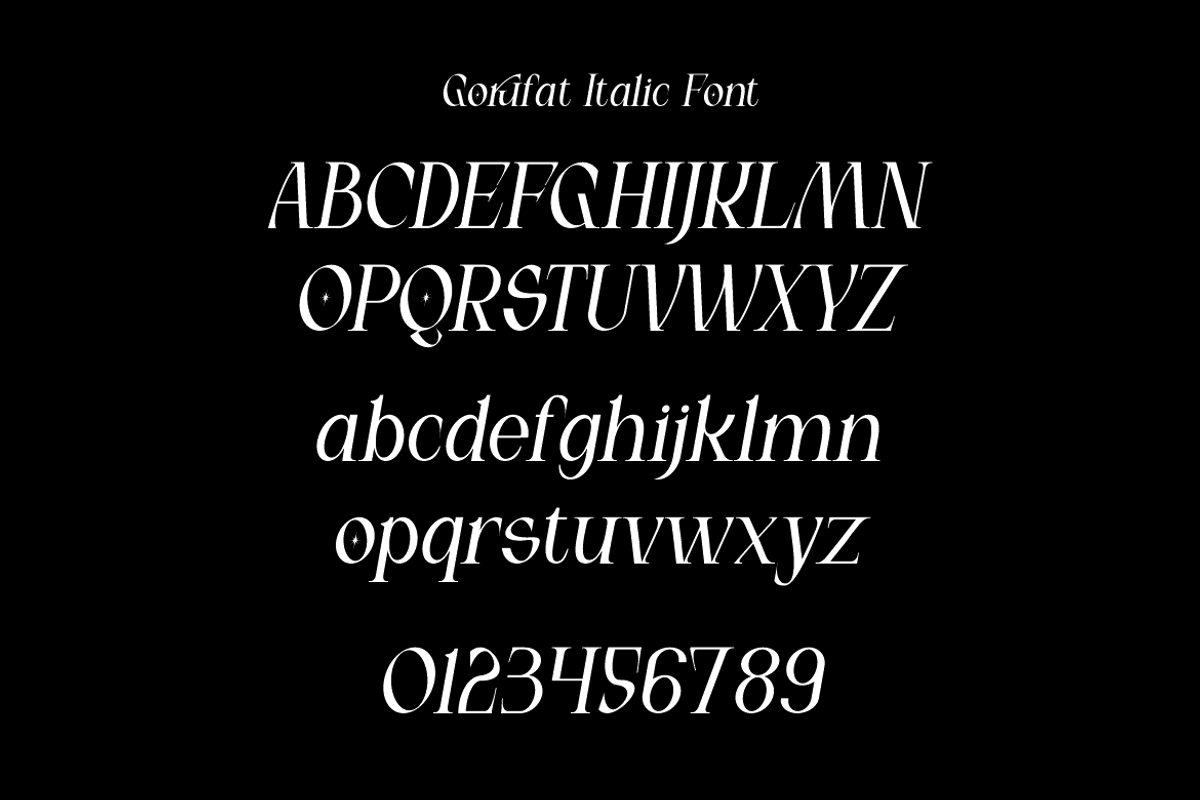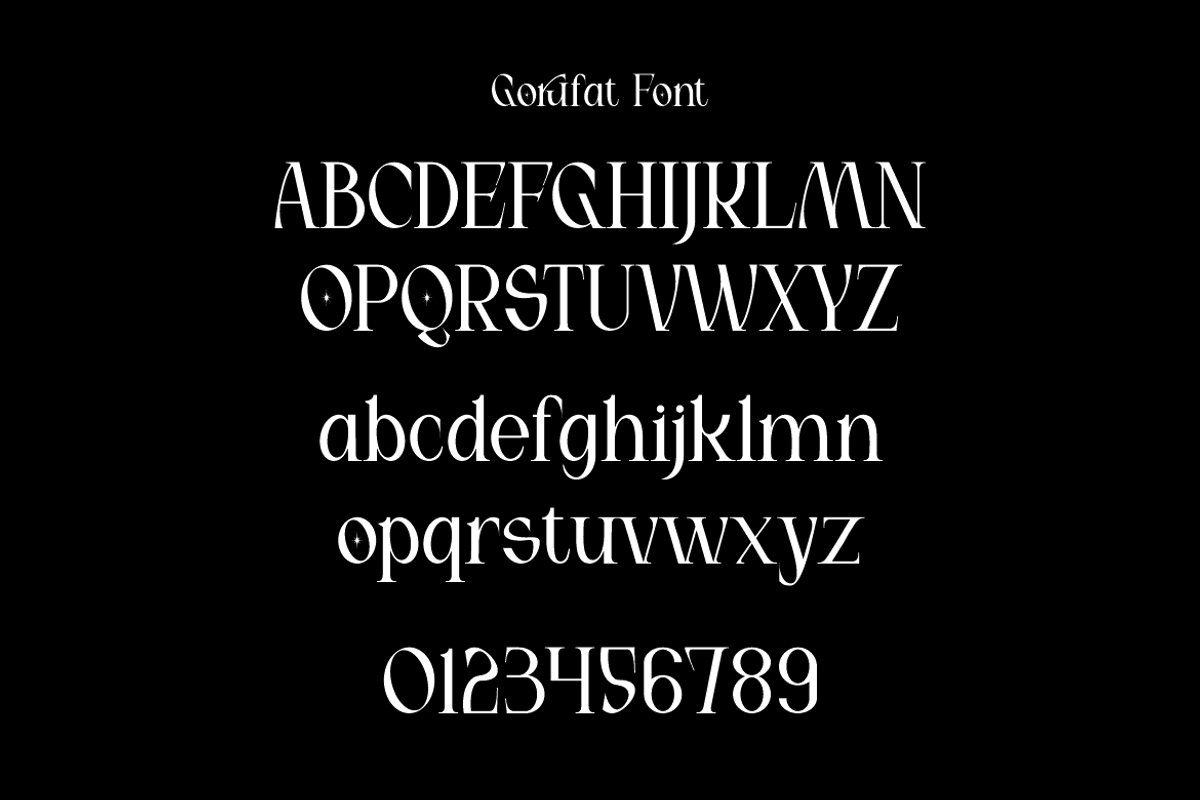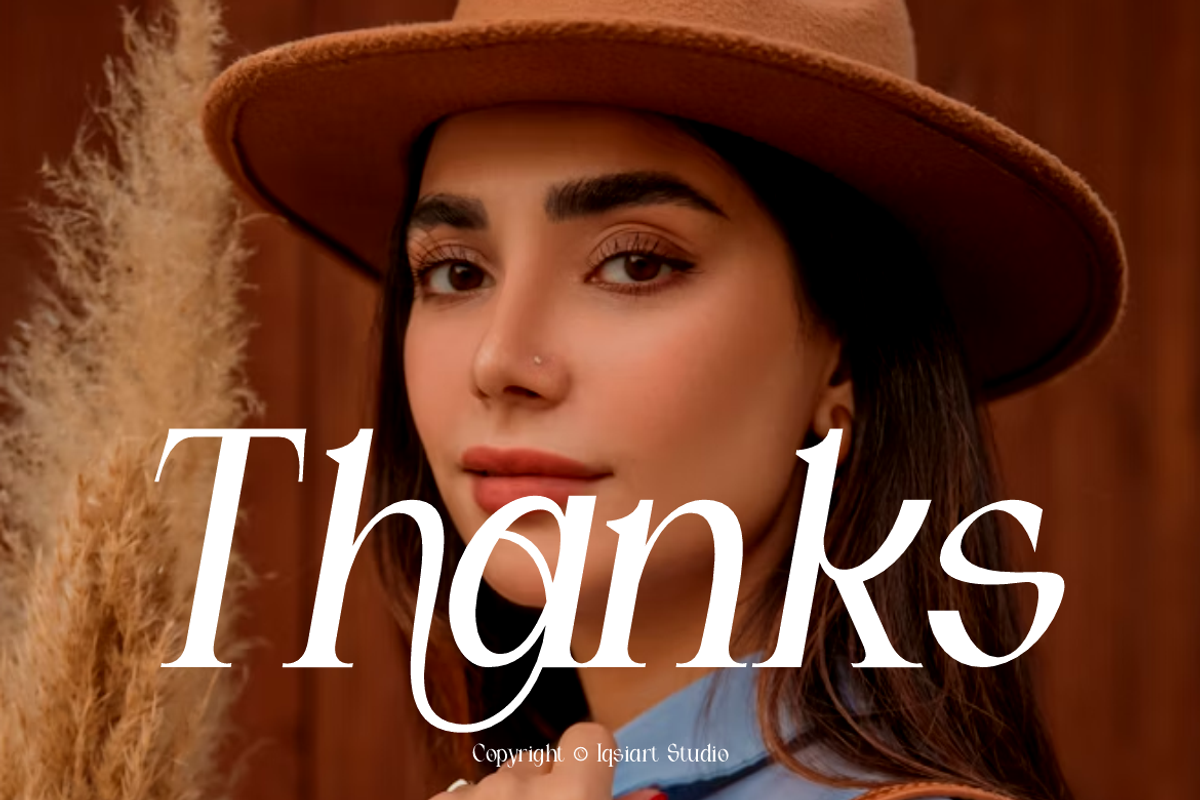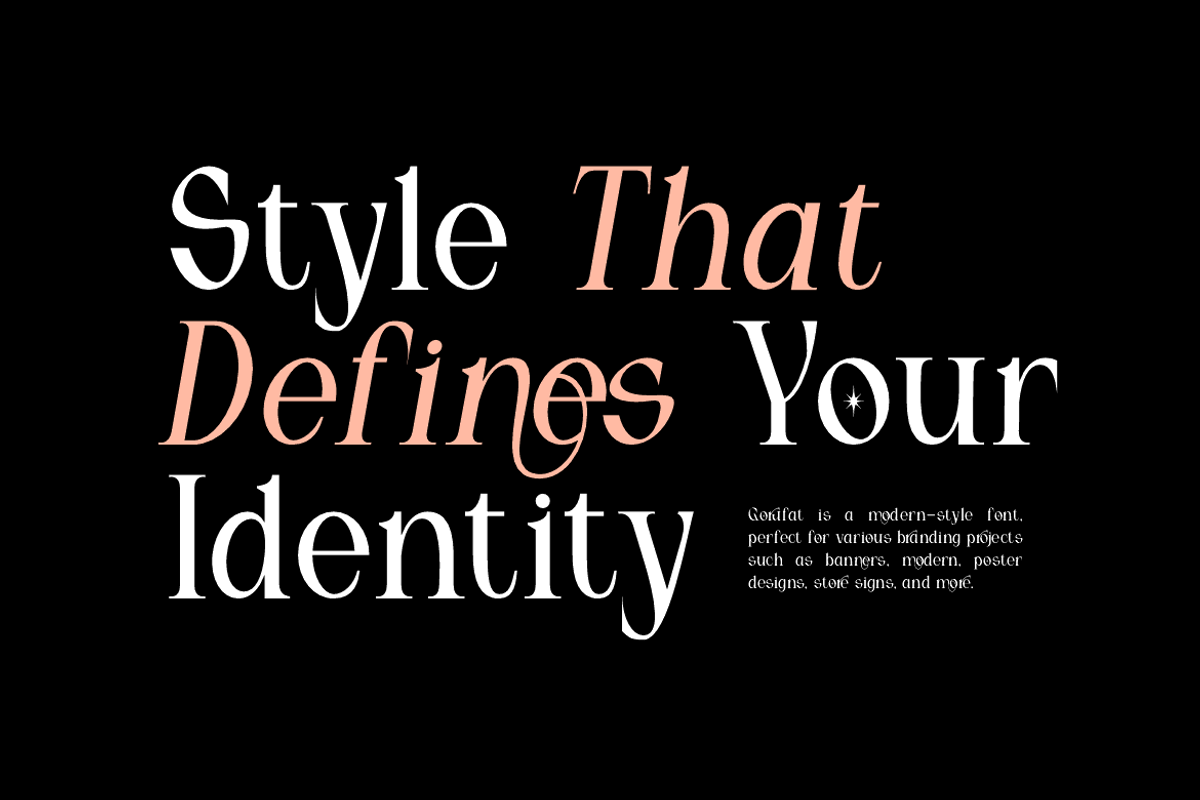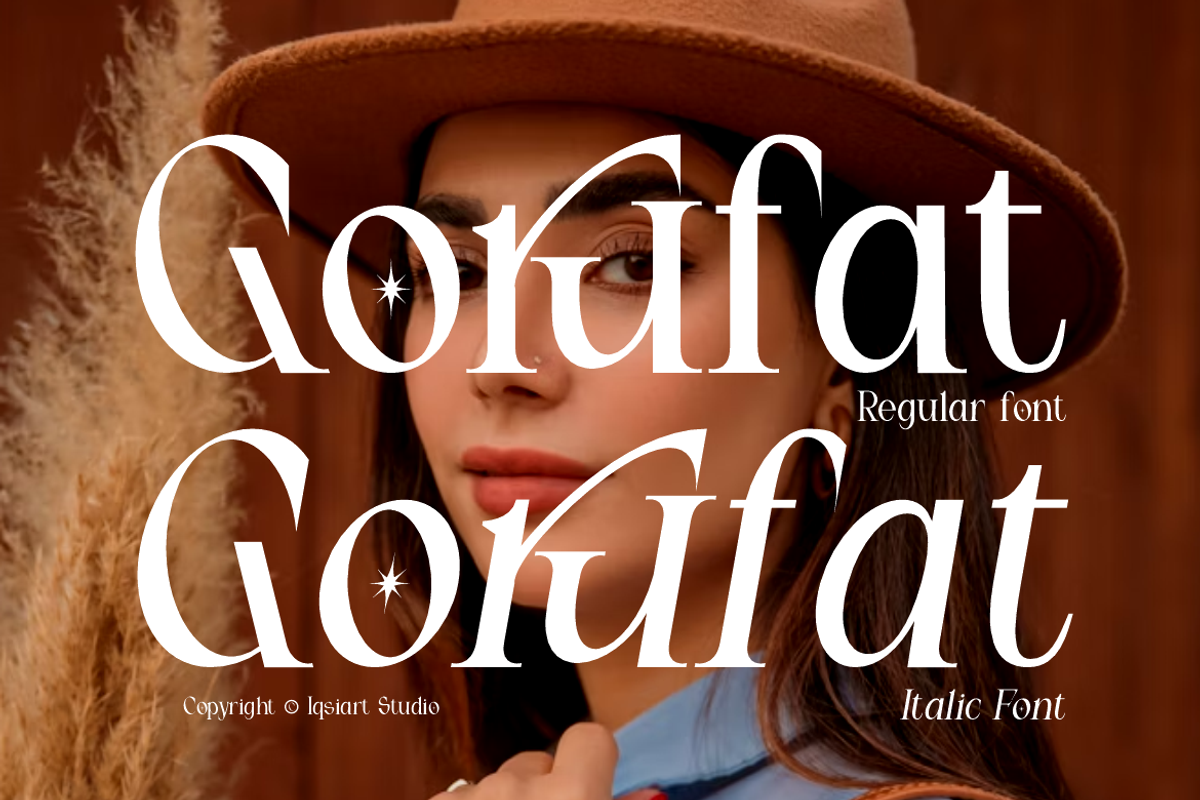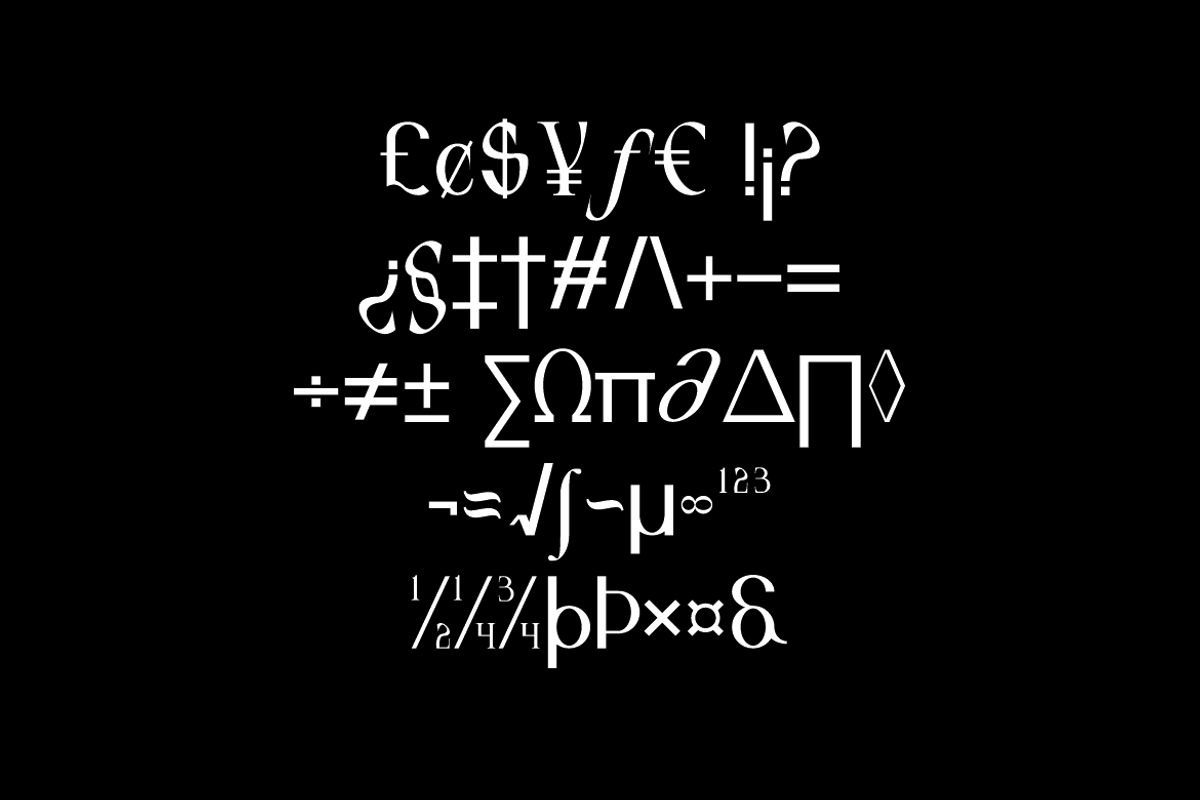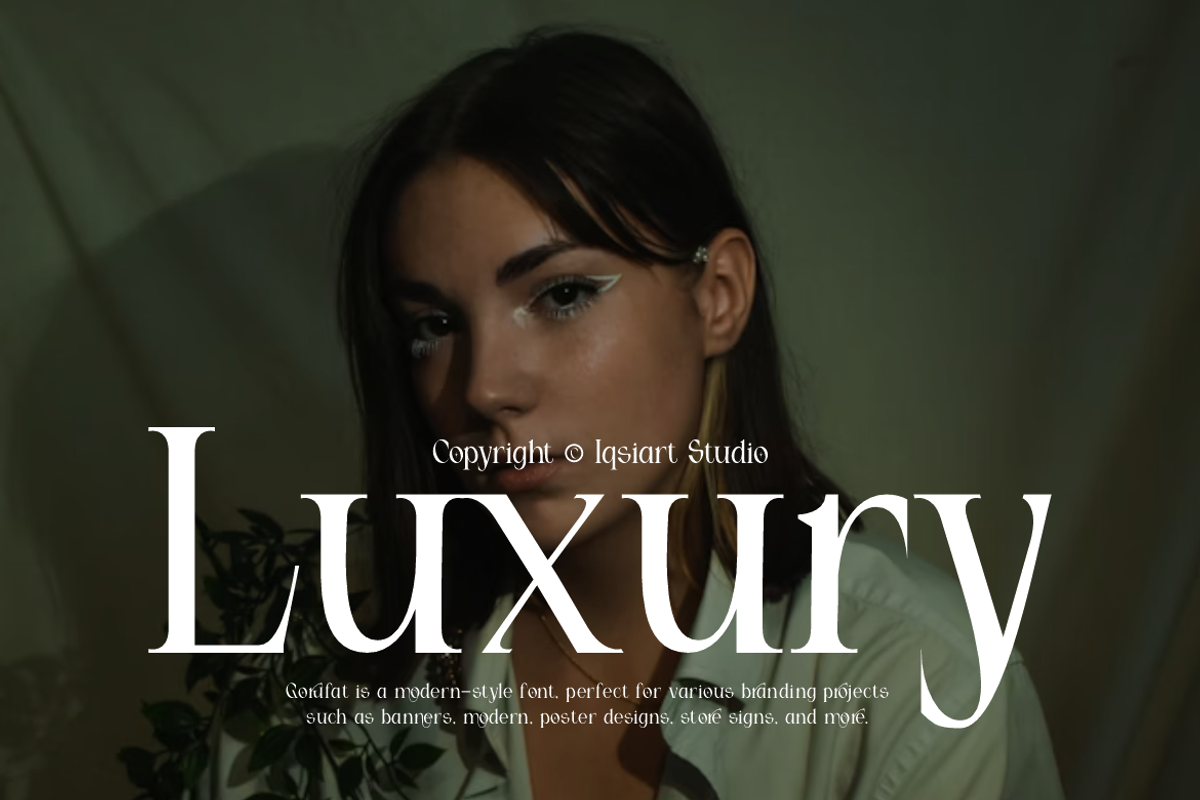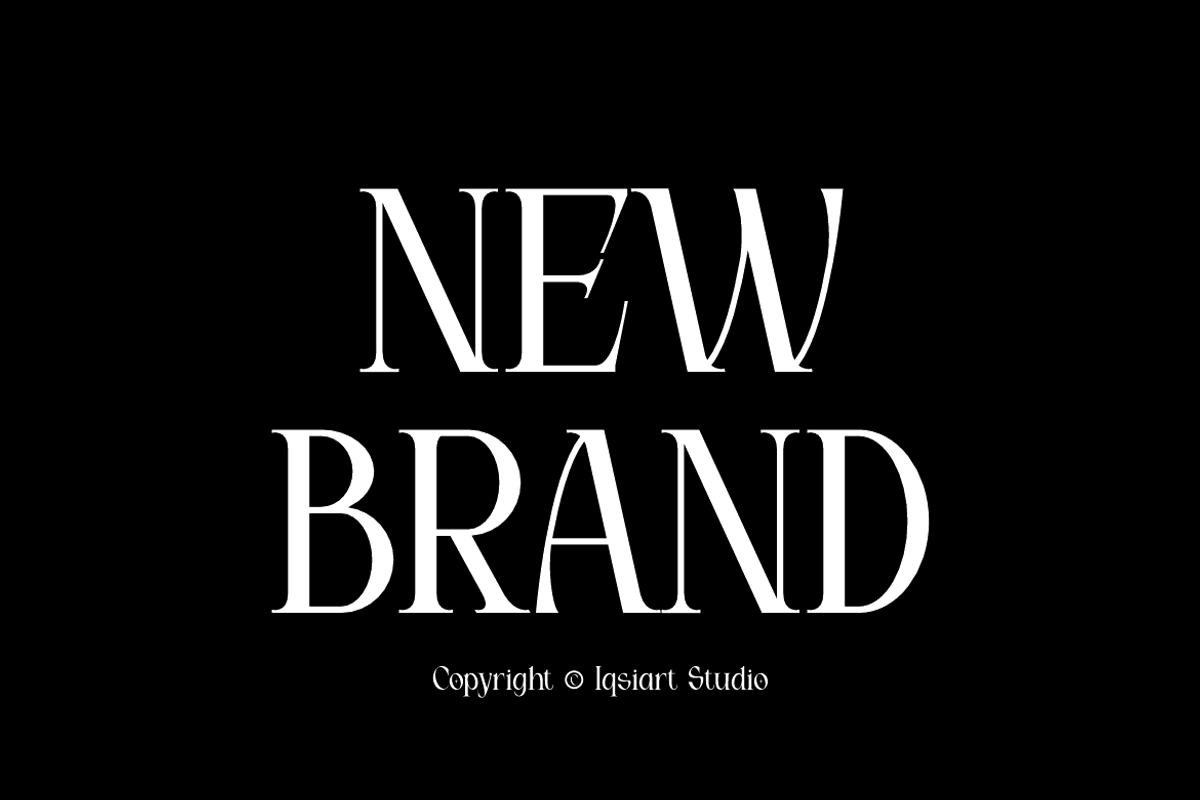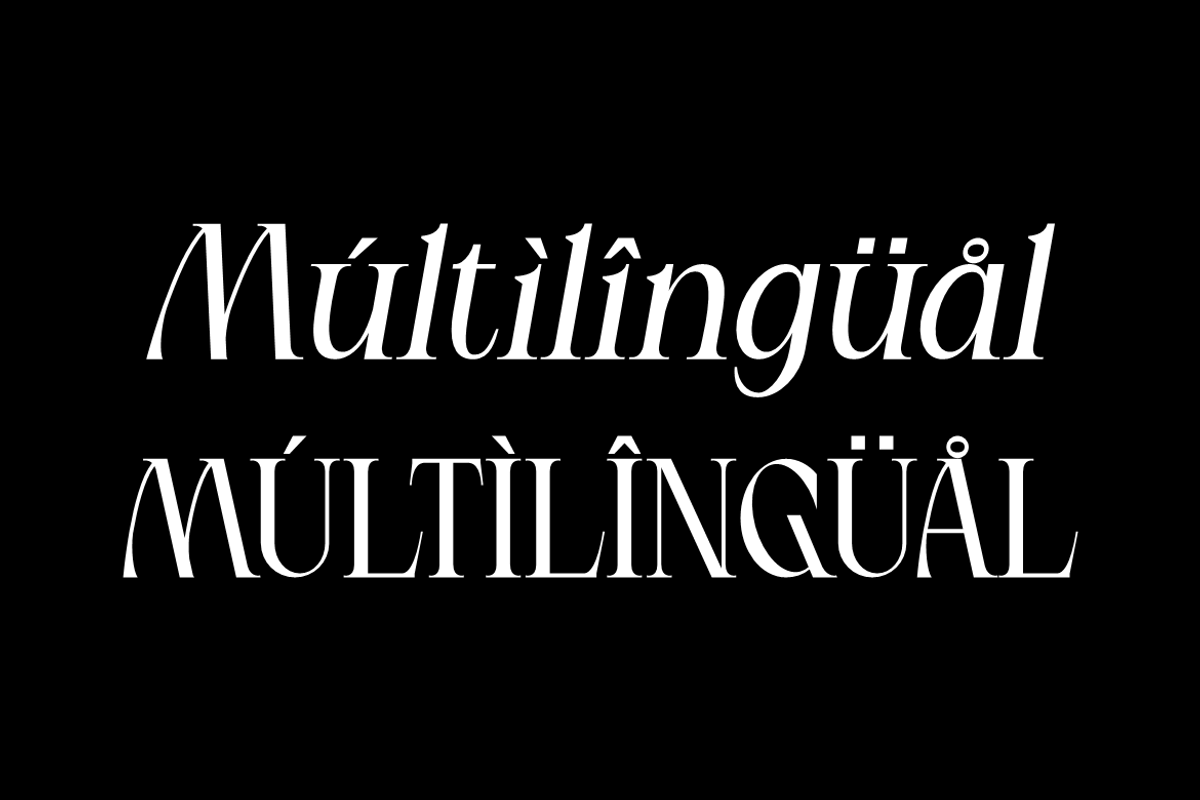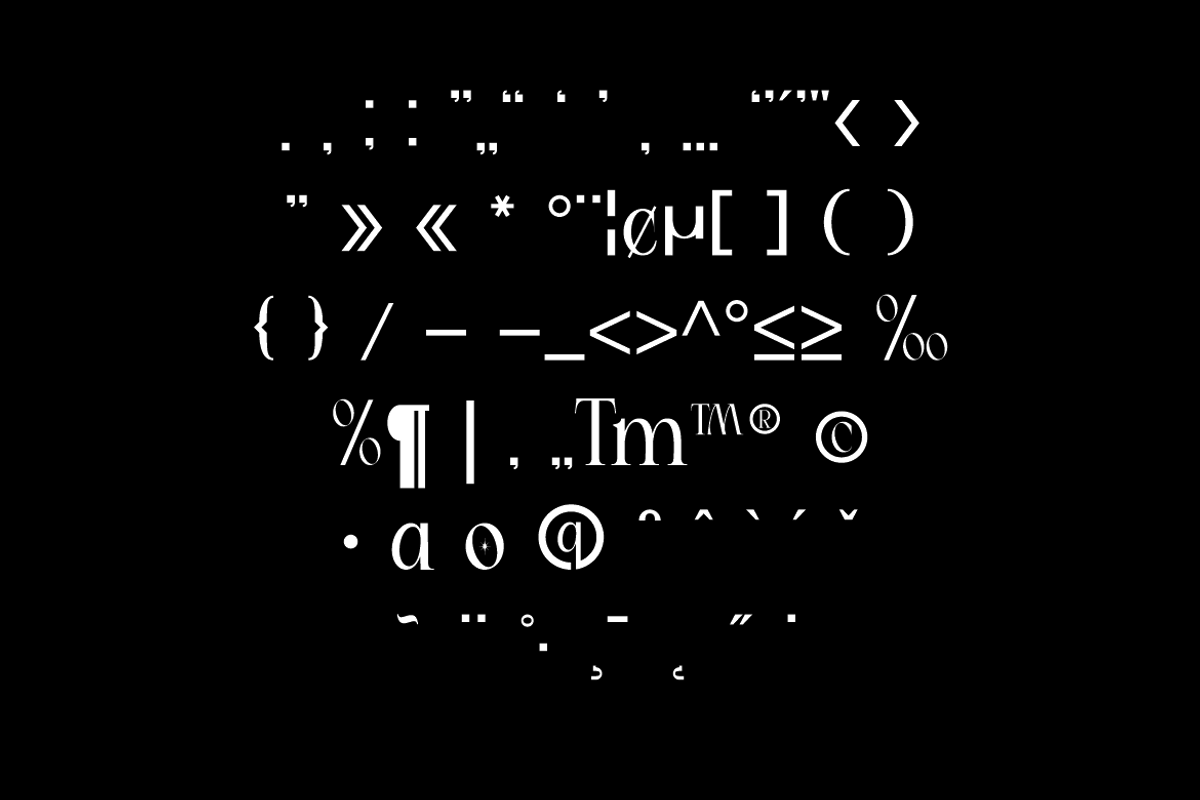
Gorufat - Modern Elegant Font
Gorufat Font is a serif and authentic display typeface
that suits a variety of design needs. We offer a wide range of themes